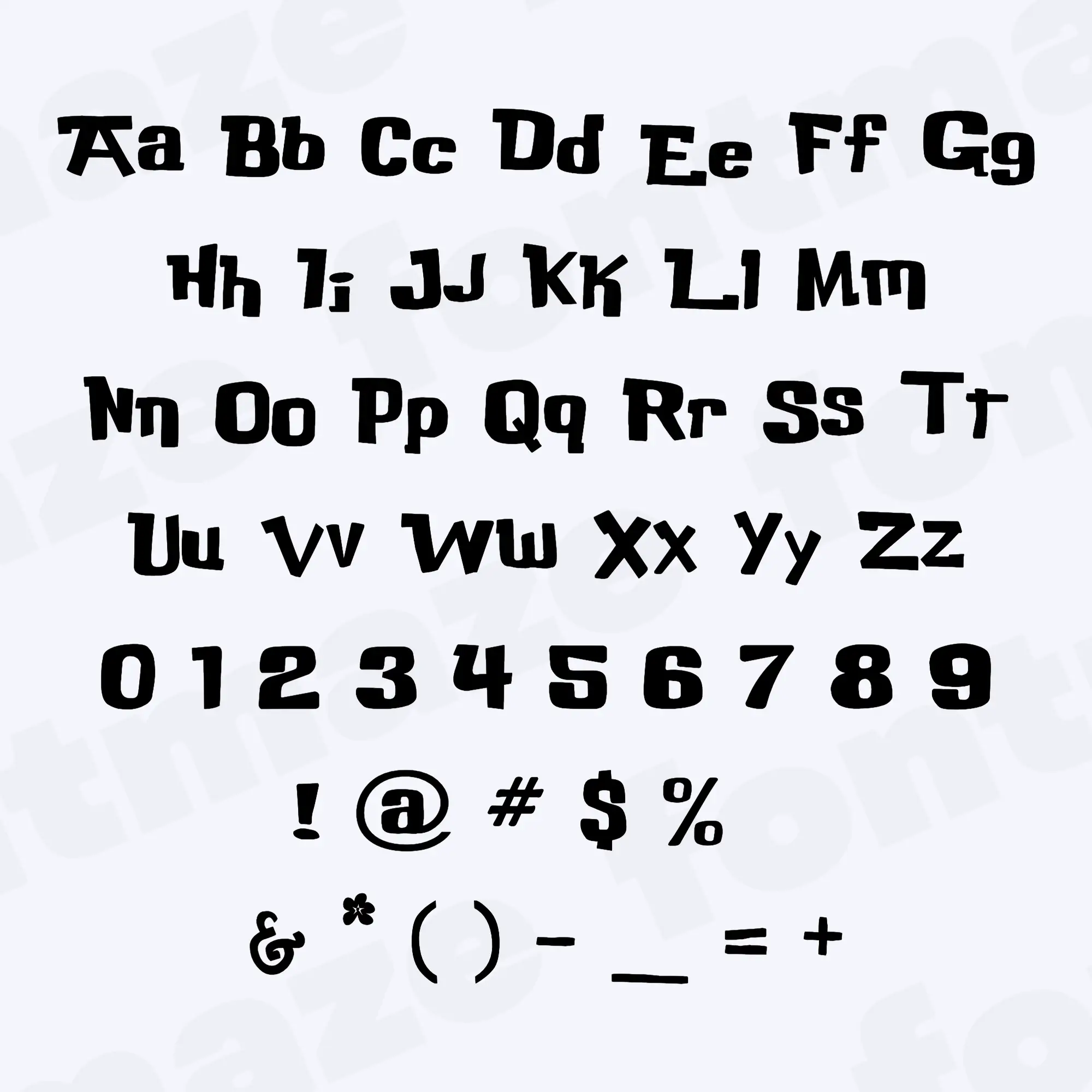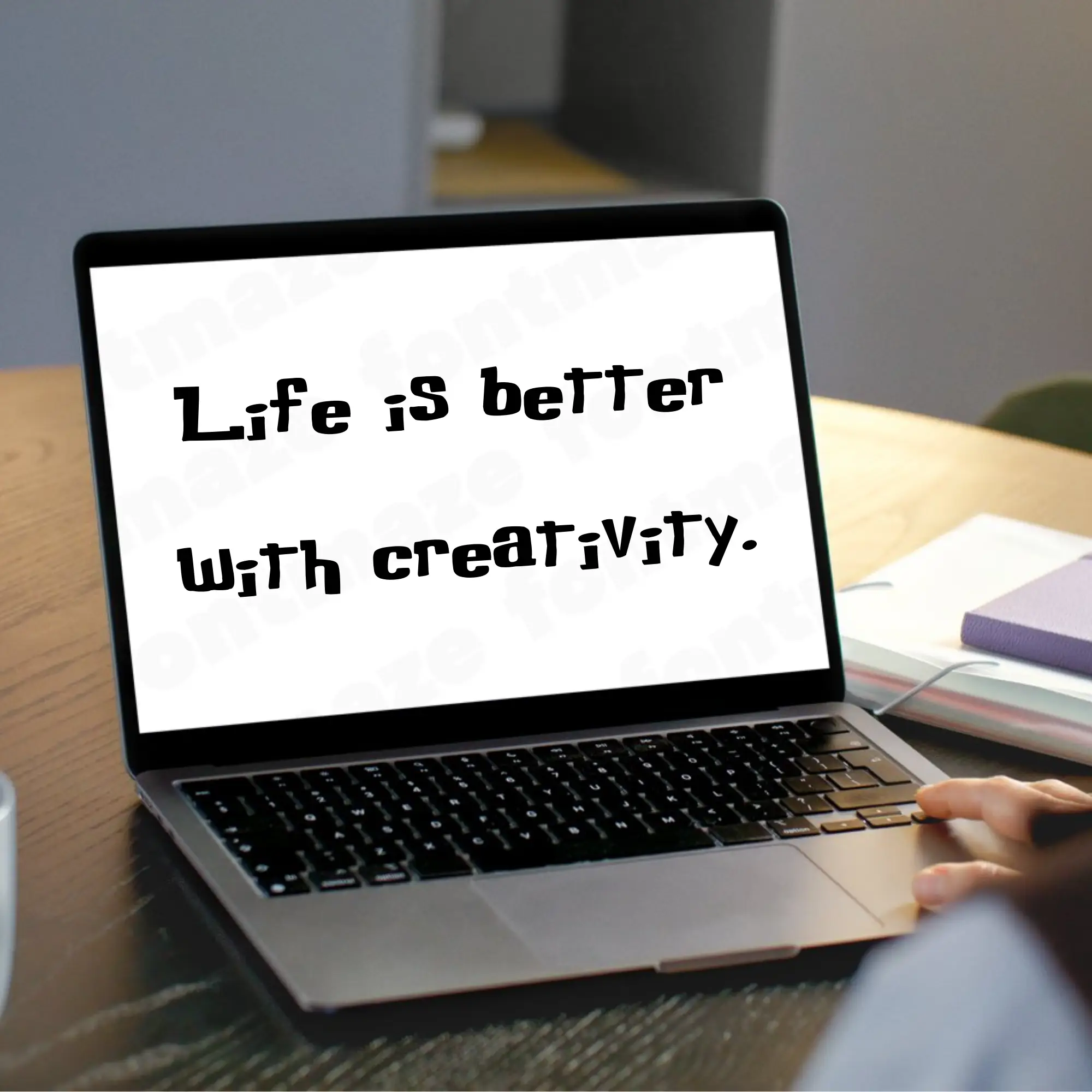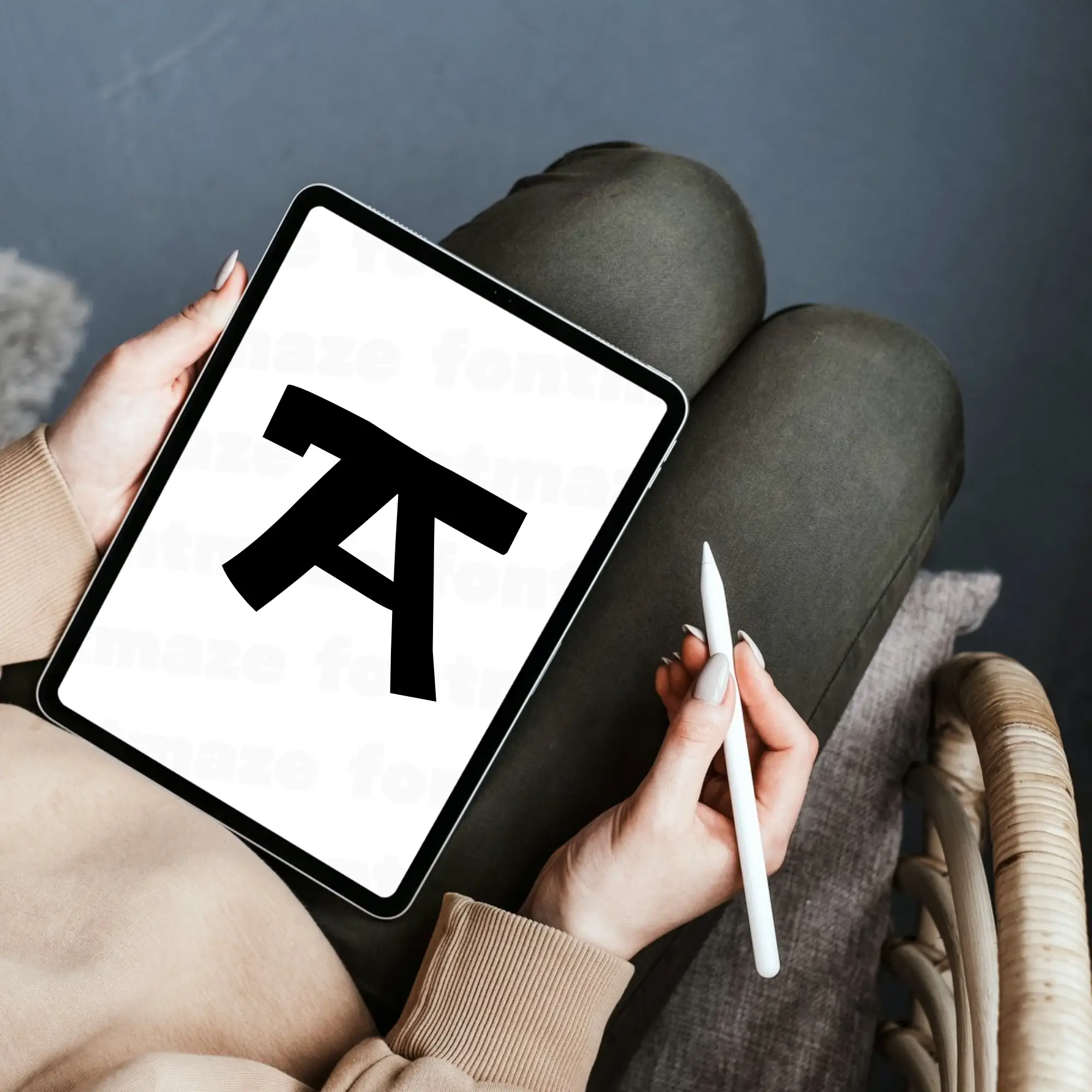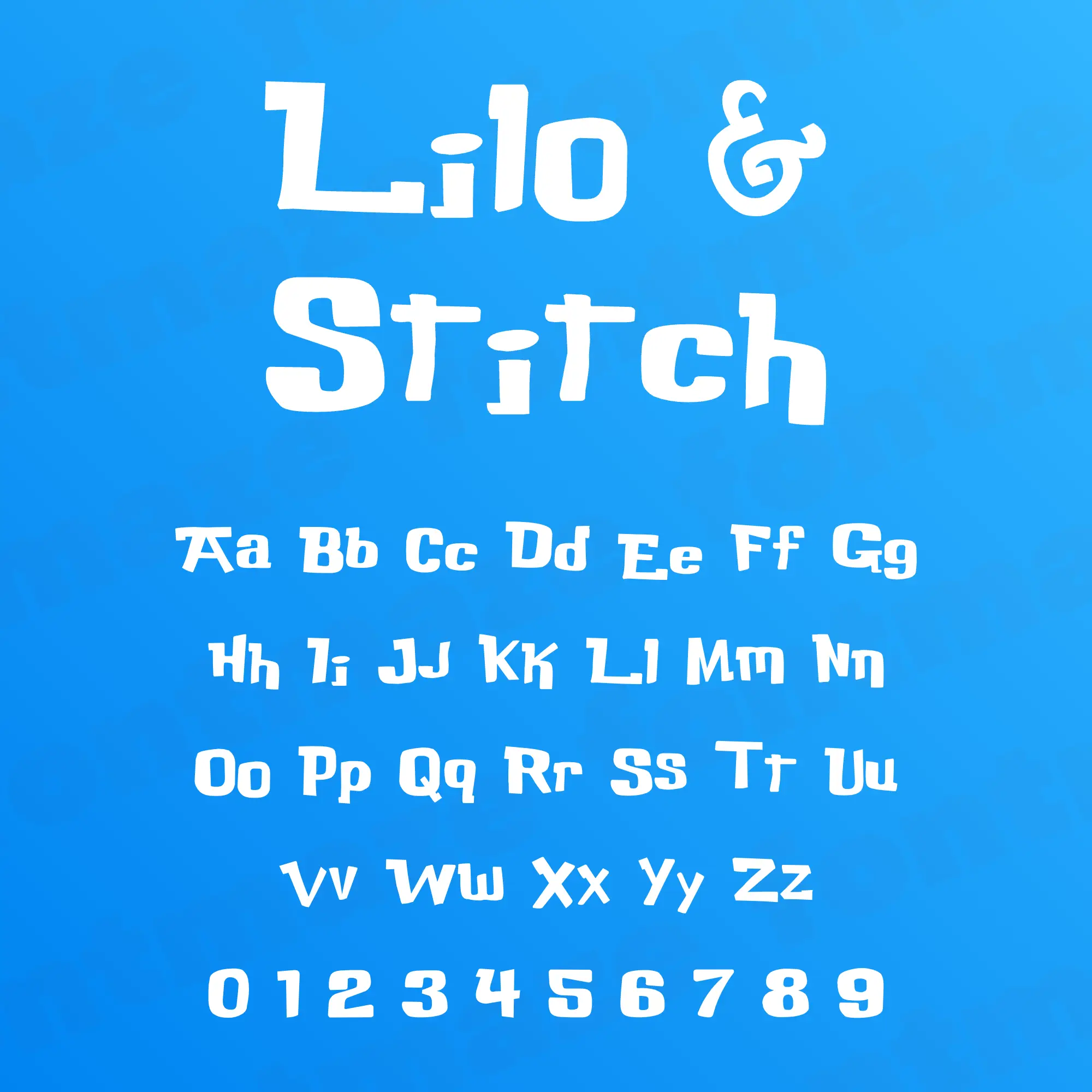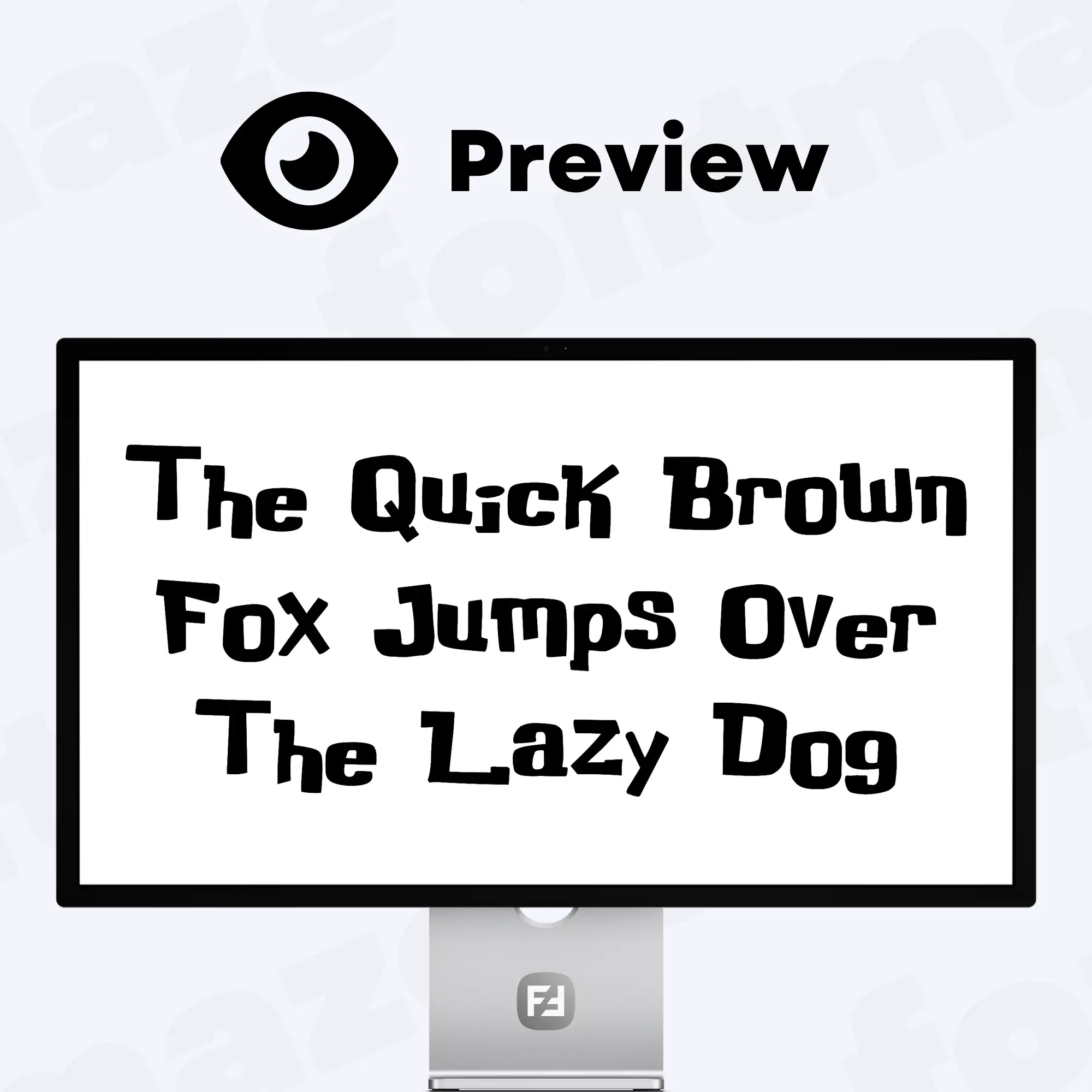
Our Lilo & Stitch Font, a Hawaiian Ohana Style Typeface
Make your next project stand out with our Lilo & Stitch font – a flexible and stylish typeface made for creators.
Handcrafted in our studio with care and attention to detail, the Lilo & Stitch font brings a unique, personal touch to your designs.
Start designing instantly with the Lilo & Stitch font – perfect for social media graphics, printable crafts, digital downloads, and creative projects of all kinds.
I paired it with a sans-serif in a brochure layout and it looked balanced.